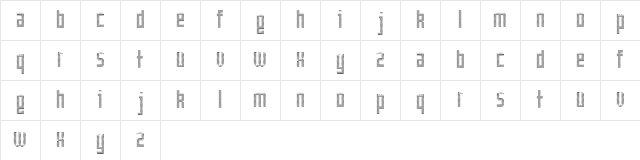
Cross Cross Free Font
Cross Cross
Style: Cross
Foundry: Beno?t Sj?holm
Designer: Beno?t Sj?holm
Design Context for Cross
Cross is a composed and adaptable typeface that performs quietly and consistently across a wide range of design contexts.
Who designed the Cross Cross font?